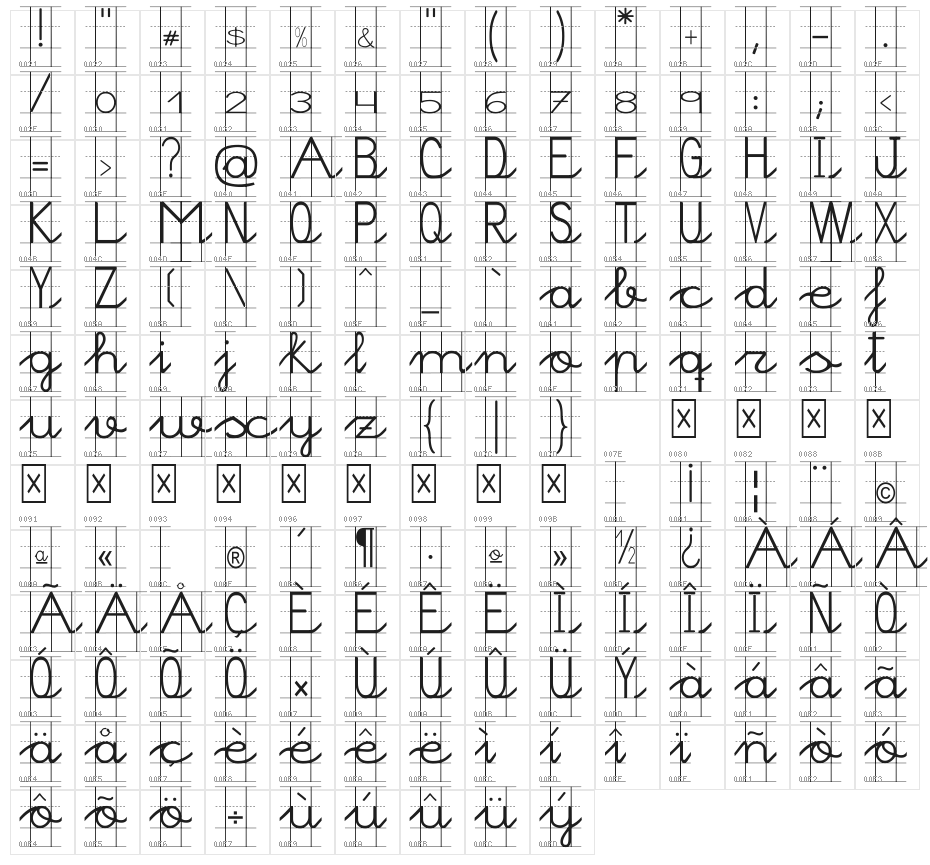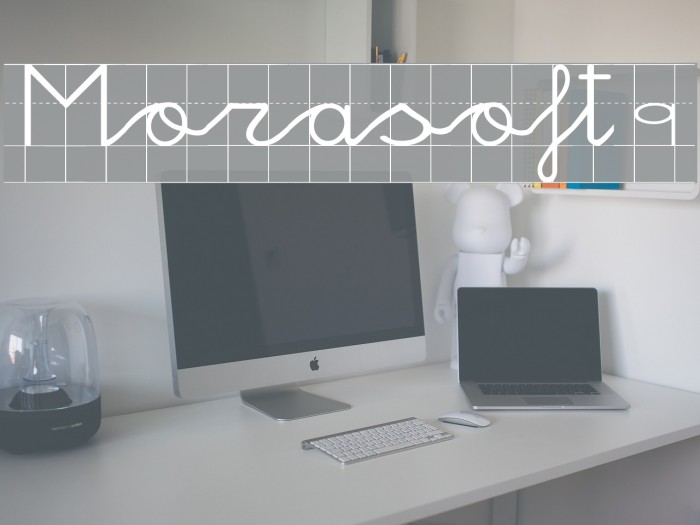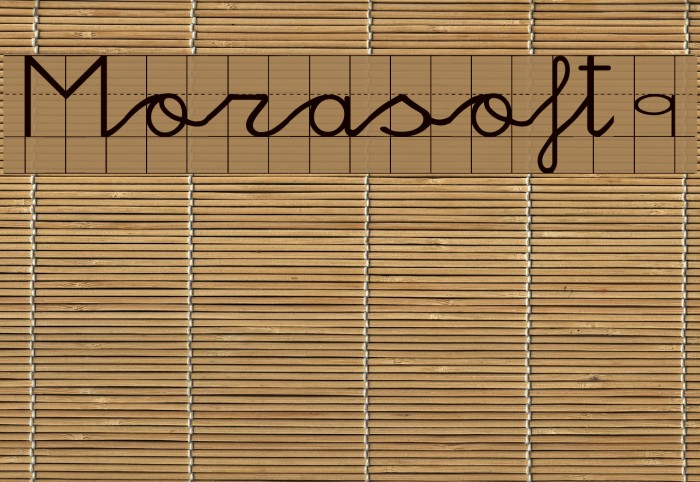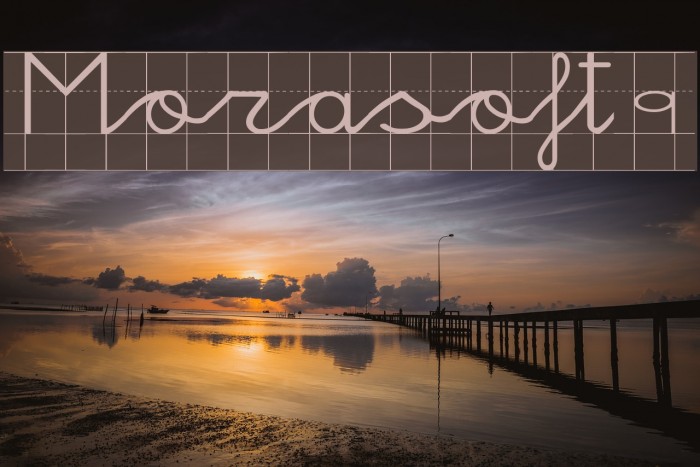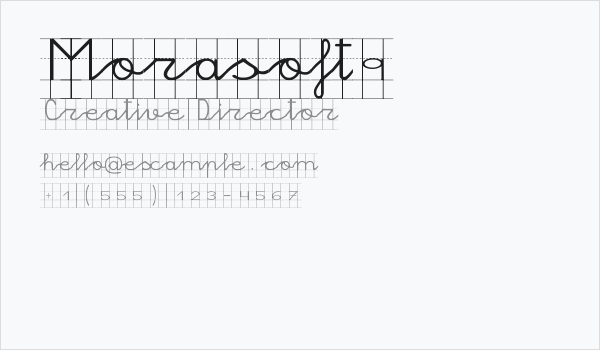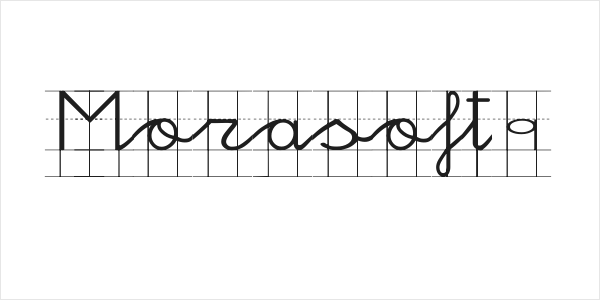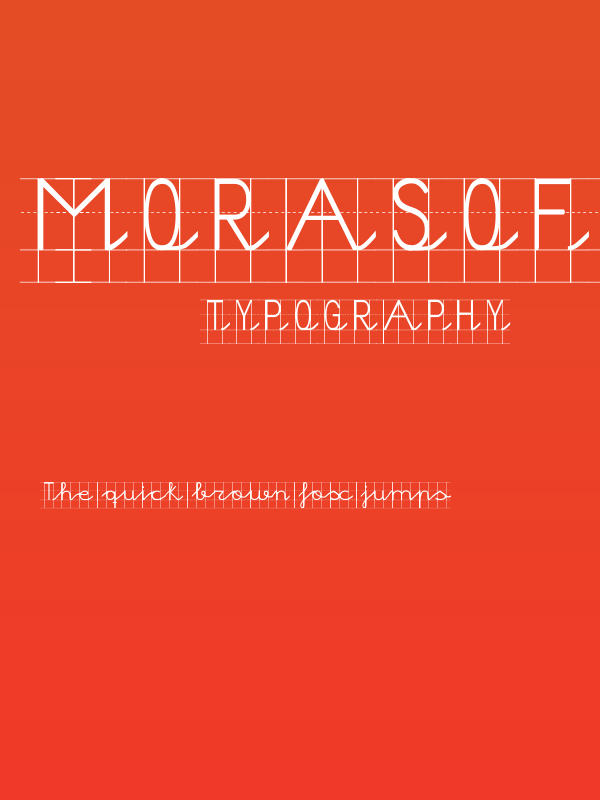
Morasoft9 Font
Morasoft9 Description
This font exhibits a classic cursive style with a modern twist, characterized by its elegant and flowing letterforms. The uppercase letters maintain a consistent height and are slightly slanted, giving a sense of movement and fluidity. The lowercase letters are connected, enhancing the cursive aesthetic, and feature smooth curves and loops. The numerals are clear and legible, with a slight slant that complements the overall style. Special characters are designed to match the cursive flow, ensuring a cohesive look across all symbols. This font is ideal for projects that require a touch of elegance and sophistication.